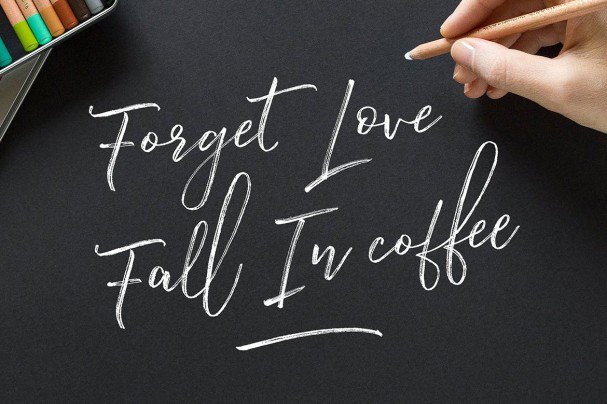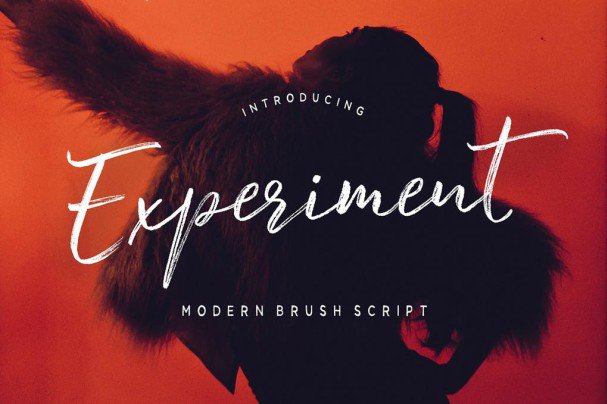
Experiment Brush Script Font
Experiment Brush Script Font is referred to as the fonts illustrator. This is extensively utilized in photoshop and it falls under the class of the show fonts. The font is applicable for large signs and symptoms, labels, titles, headlines. Any photo format at the net, in movement photographs.
It’s an extended manner a superb font for papers. volkswagen font is cool typography designed as a cutting-edge and huge form of figures that cowl clean. Experiment Brush Script Font Free Its ink traps ensure clean performance even on low-extraordinary papers. As an end end result, its dimensions are looking to help the environment in pinnacle and width, consequently makes grand traditional marketing enterprise fonts.
It’s miles one of the terrific format fonts for titles, headlines, and posters. Due to truth, its proportions have the reason of gaining location in height and width. Download Every distinctive varsity font is the modern-day show font family. It has become created as an individual responsibility inspired through the use of using a tremendous layout.
The only font’s findings will add a hint of the interest to a format. In aggregate, his direct and rounded traces seen thoughts of classical form – vertical mountaineering pilasters, semi-spherical arch, a horizontal cornices. Further, an appealing and active model can use waft decrease back as a separate font. The font like large display font includes the ligatures, ordinals.